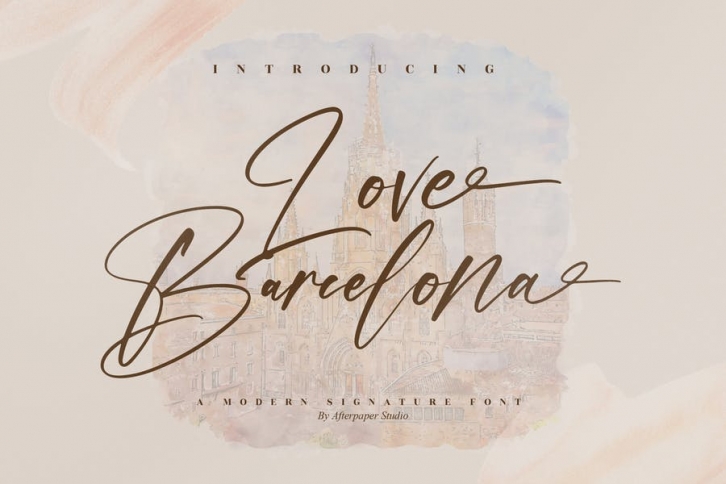
Love Barcelona Modern Signature Font Download
Hi ladies & gentlemen, this is one of our fonts suitable to complement your digital and printed creative products. This font is perfect for posters, social media posts, branding, personal projects, etc.